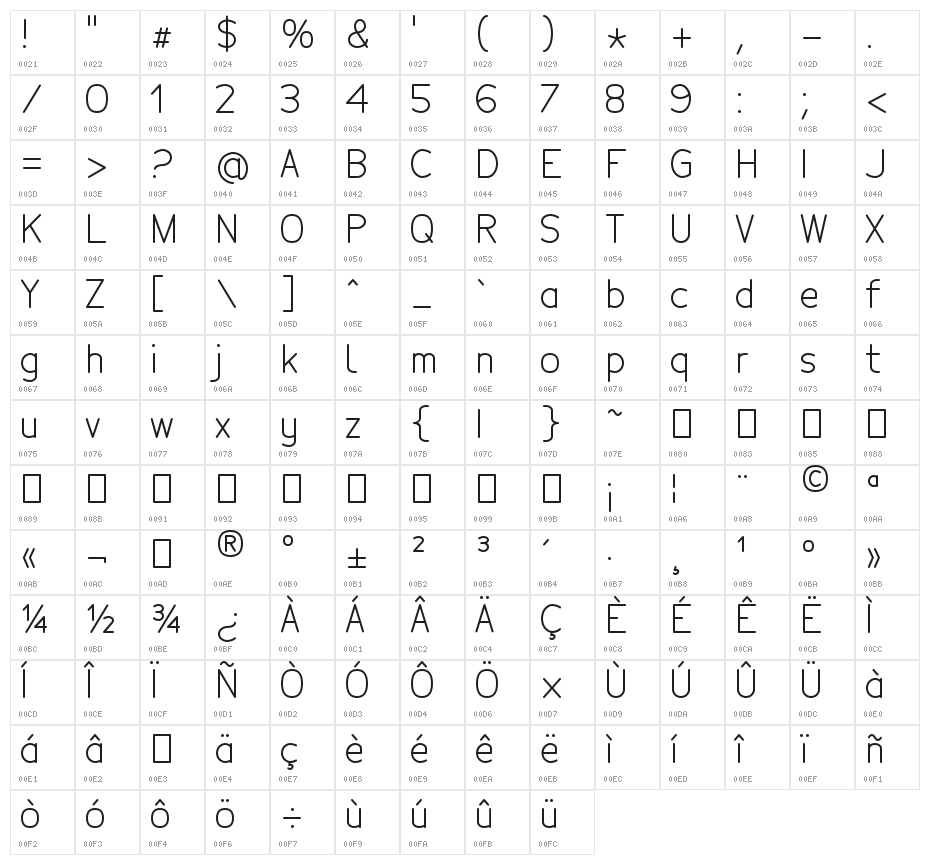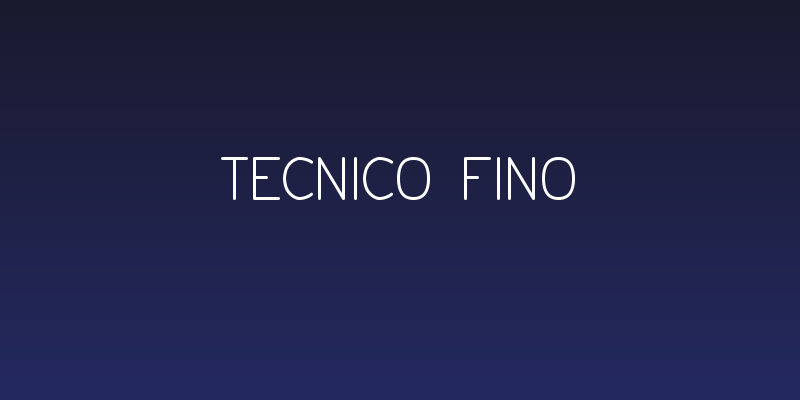
Tecnico Fino Font
Tecnico Fino Description
This font features a clean and modern sans-serif design, characterized by its geometric shapes and uniform stroke widths. The letters are well-proportioned, with a consistent height and width that provides a harmonious appearance. The uppercase letters are bold and assertive, while the lowercase letters maintain a friendly and approachable look. The numerals are clear and easy to read, making them suitable for various applications. Special characters are included, offering versatility for different design needs. Overall, this font exudes a contemporary and professional vibe, making it ideal for digital and print media.
| Proposed Projects | Ideal for branding, web design, advertising, and editorial layouts. |